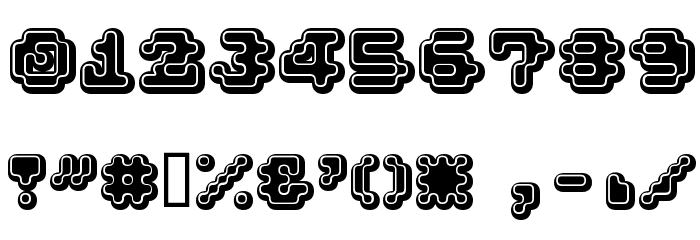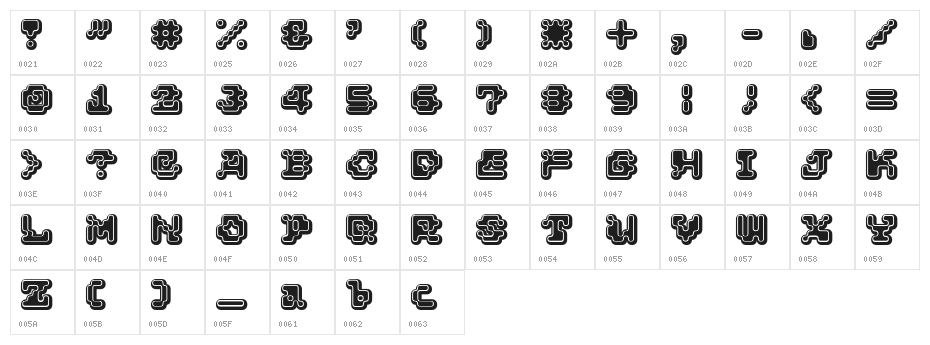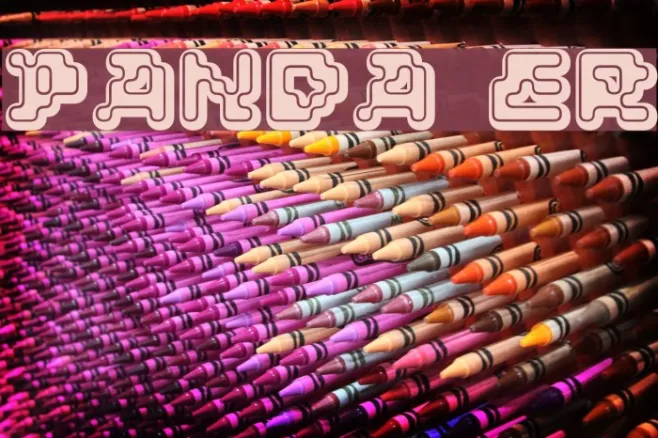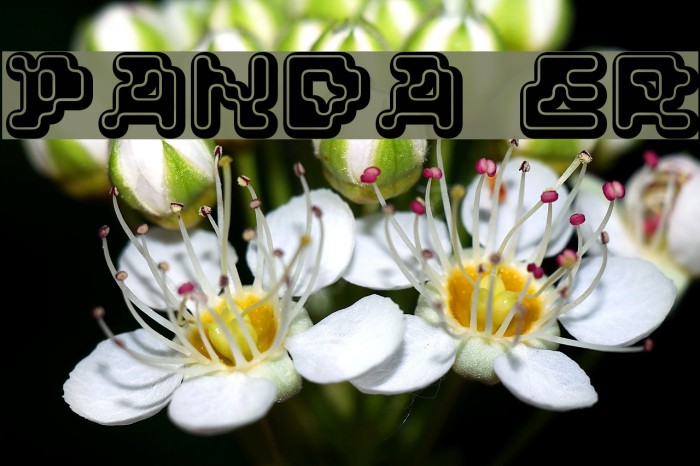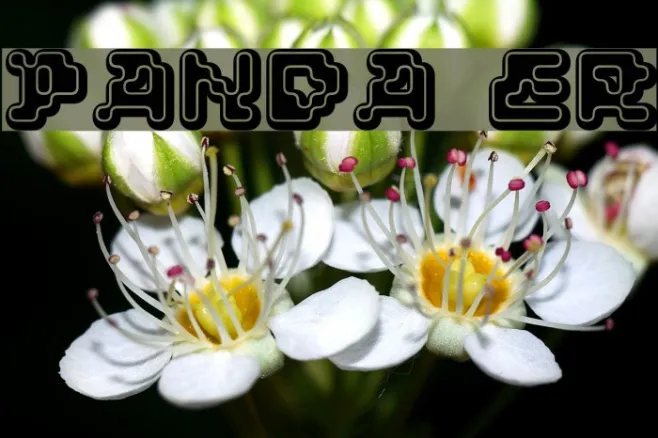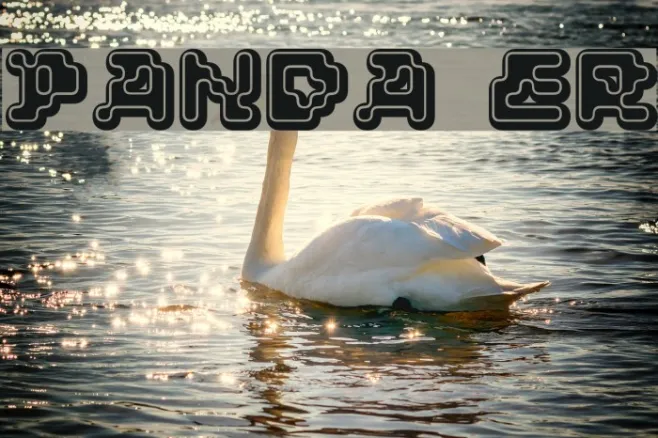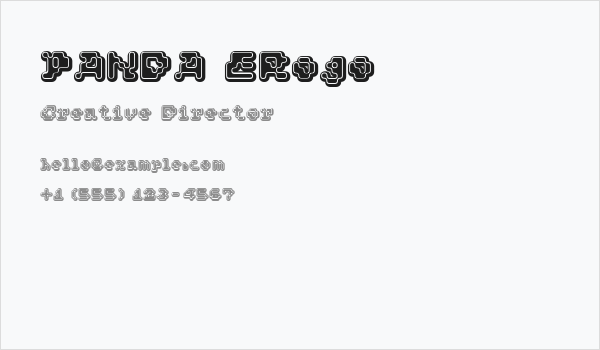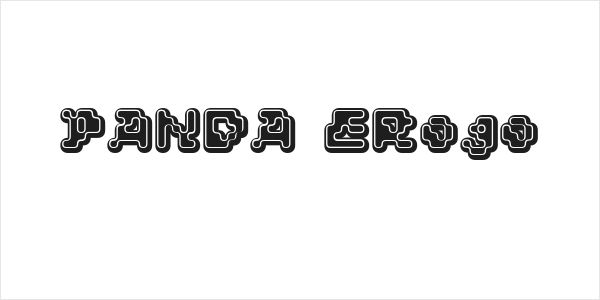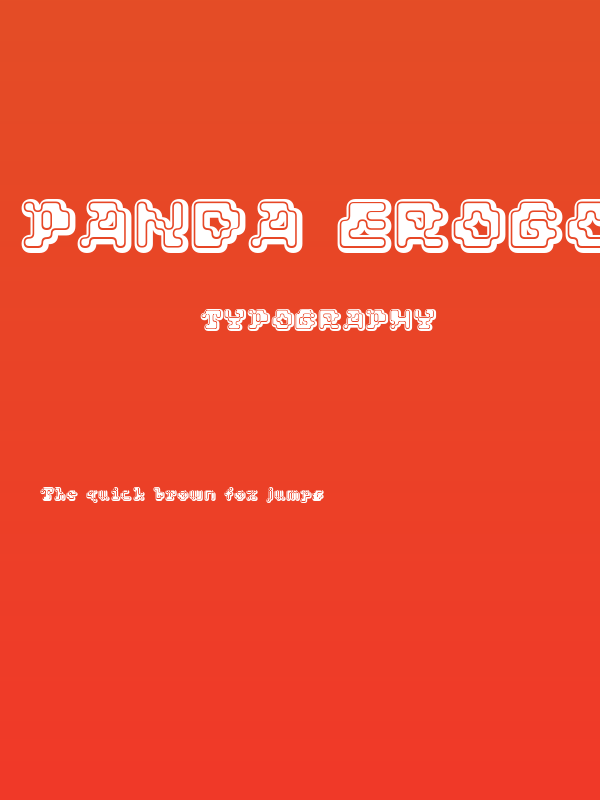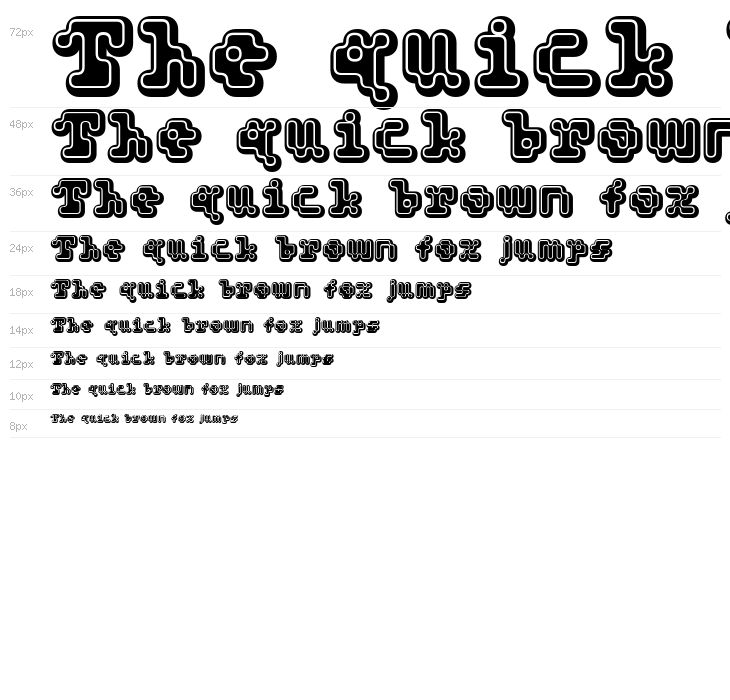
PANDA ERogo Font
PANDA ERogo Description
This font features a bold, playful design with a three-dimensional effect created by its thick outlines and layered appearance. The characters are rounded and bubbly, giving them a cartoonish and fun vibe. The uppercase and lowercase letters maintain a consistent style, with the numbers and special characters following suit. The font's unique structure makes it stand out, ideal for eye-catching designs. Its boldness and decorative nature suggest it is best used in contexts where attention-grabbing text is needed.
| Overall Style | Playful, Cartoonish, Decorative |
| Proposed Projects | Ideal for children's books, comic strips, playful branding, and event posters. |